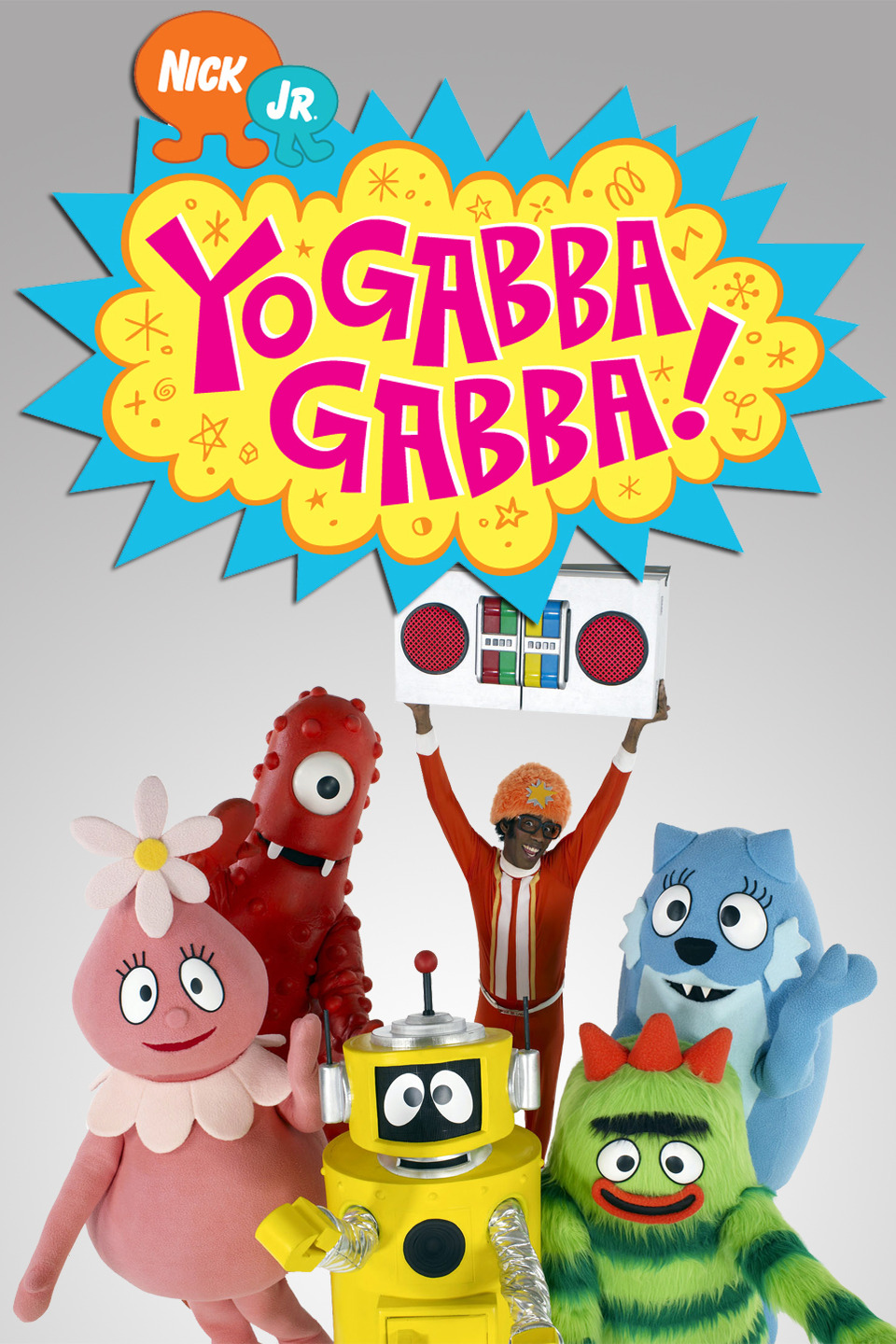
Yo Gabba Gabba Font
AnimationYo Gabba Gabba! is an American live-action/puppet educational children's television series that premiered in 2007 and ran for 5 seasons. The show teaches preschoolers life lessons through music, animation and celebrity guest appearances.
Sean Trowbridge designed a font, named Gabbaland, that is based on the logo of the television show Yo Gabba Gabba. The font is only available for personal use, it can be downloaded for free from Fonts Used Section.